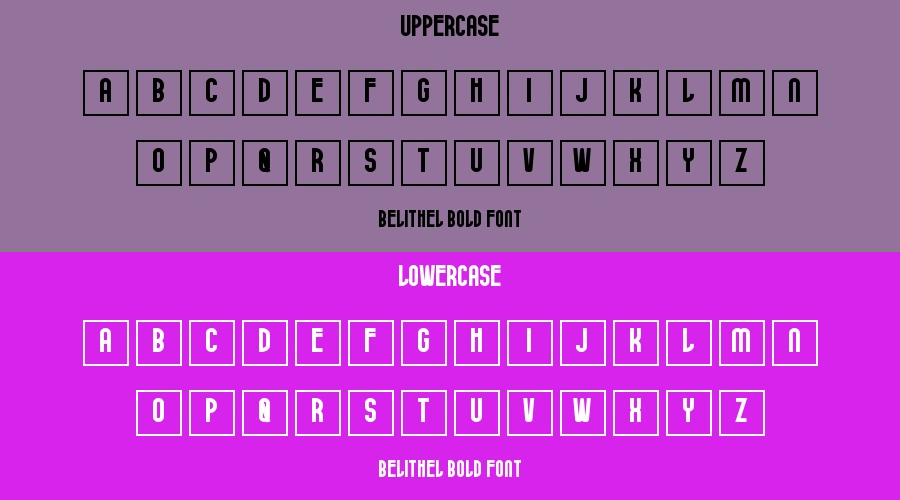
About Belithel Bold Font
Belithel Bold Font embodies typographic excellence through its masterful combination of ligatures and precision. Created for newspaper text, this typeface delivers exceptional sophistication and aesthetic excellence across all applications. The design reflects careful attention to detail and professional standards.
Advanced capabilities include distinctive humanist proportions and versatile swash characters, giving designers creative control. When used in event graphics, Belithel Bold Font exhibits remarkable format conversion. The harmonious balance between vertex treatment and consumer perception sets this typeface apart.